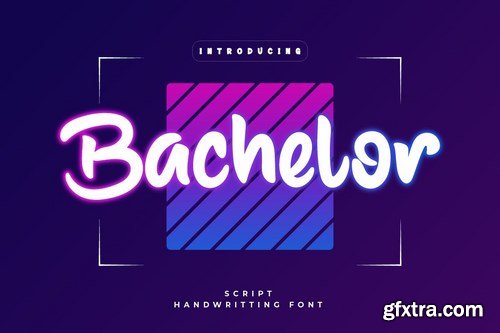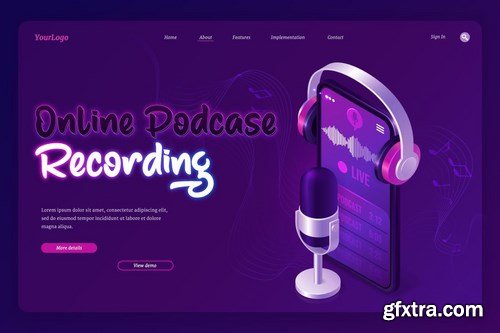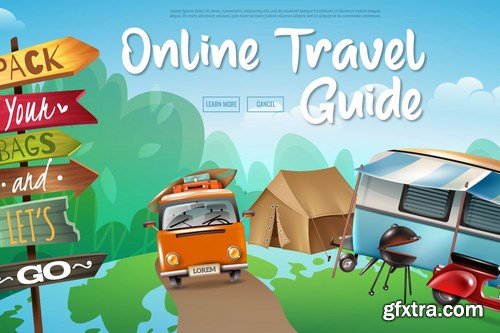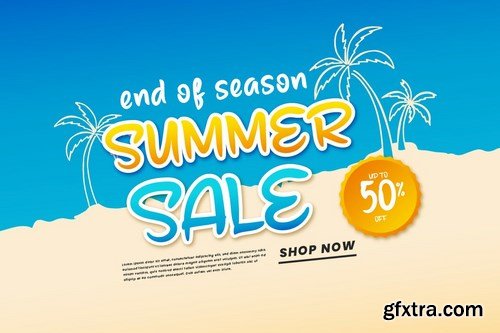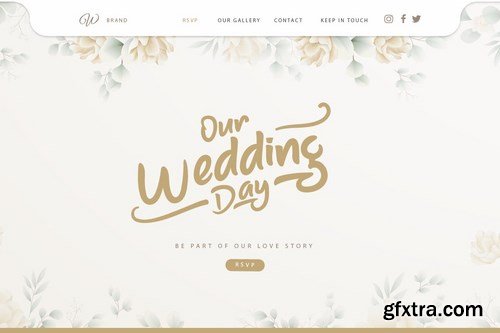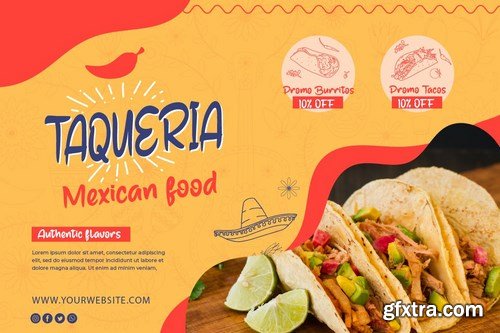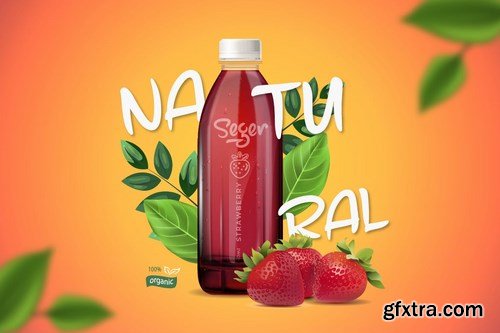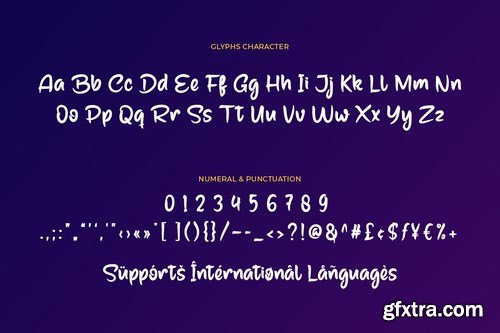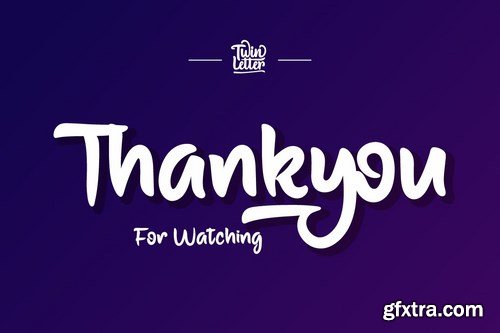
Introducing our font named Bachelor This font is a handwritten typeface with a calm, abstract, and lovely hand touch that may be used in a range of applications.